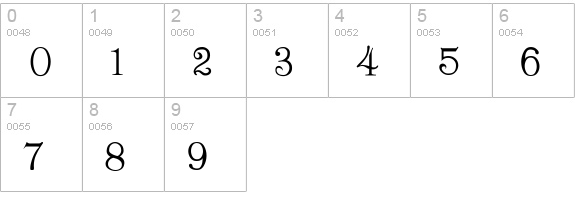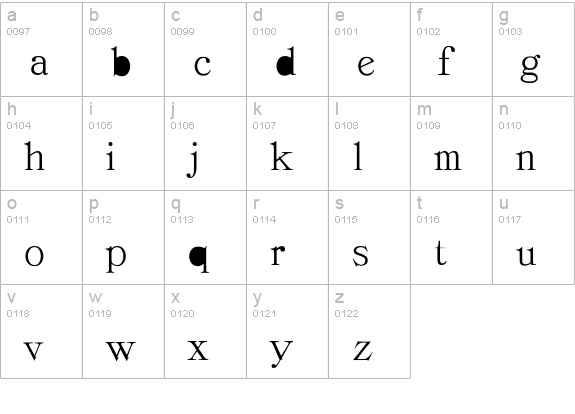
PCCordellaRoman Font Details
PCCordellaRoman is a breathtakingly elegant font that captures the essence of classic Roman typography with a modern twist. This font exudes sophistication and grace, making it the perfect choice for high-end designs and projects. With its clean lines and balanced proportions, PCCordellaRoman offers a timeless appeal that never goes out of style. Its versatile nature allows it to be used across a wide range of applications, from branding and packaging to editorial design and signage. One of the most remarkable aspects of PCCordellaRoman is that it is freely available to download at FontsMarket.com. This means that you can easily access and use this exquisite font without any cost or restrictions. It is a true gem for designers and creatives who are looking to add an air of elegance to their projects. Whether you need to create stunning invitations, design luxurious logos, or elevate your website's typography, PCCordellaRoman is the perfect choice. Its attention to detail and expert craftsmanship shine through in every letterform, delivering a truly captivating visual experience. So why wait? Experience the beauty and versatility of PCCordellaRoman today. Download it for free at FontsMarket.com and unlock a world of design possibilities. Let this font become your go-to choice for creating stunning, sophisticated designs that leave a lasting impression.